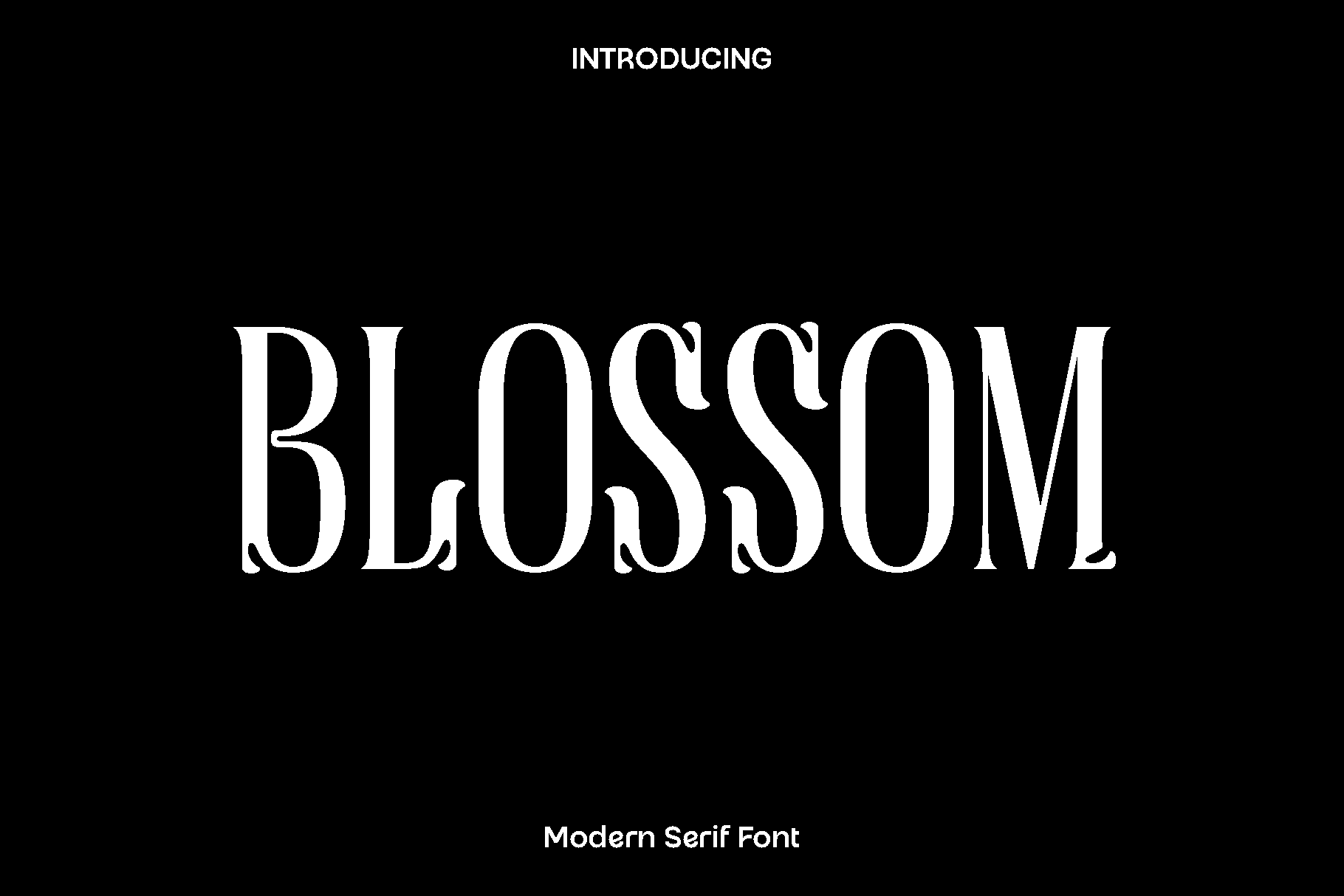
Blossom - Modern Serif Font
Blossom is a retro style font inspired by classic lettering and timeless design aesthetics. Created with careful attention to detail, this font brings a warm, nostalgic feel that instantly adds personality and charm to any project. Its bold yet friendly letterforms reflect the spirit of vintage typography while remaining clean and visually balanced for modern use.
Blossom shines in branding design, logo creation, greeting cards, packaging, headlines, and promotional materials that need a memorable and expressive touch. The retro character of this font evokes creativity, joy, and authenticity, making it perfect for lifestyle brands, creative studios, cafés, apparel, and handmade product designs. Whether used for bold titles or playful typography, Blossom delivers strong visual impact and readability.
Designed to feel inviting and expressive, Blossom helps your work stand out with a distinctive retro voice. It blends nostalgic style with versatile usability, allowing designers to create eye catching designs across both print and digital platforms. Blossom is an excellent choice for creatives who want to add character, warmth, and originality to their visual storytelling.
Blossom Retro Font Features:
• Retro style display characters
• Clean and accurate letter construction
• Suitable for branding, logos, packaging, and headlines
• Uppercase and lowercase support